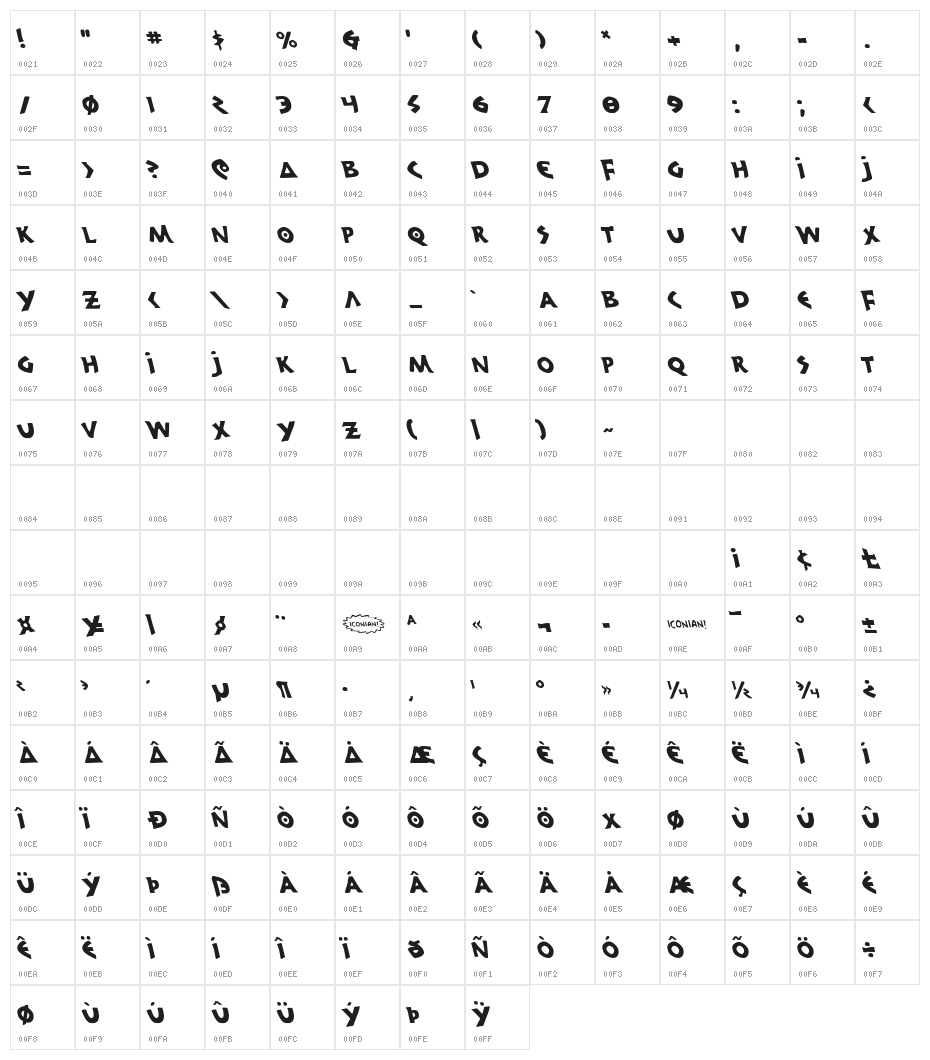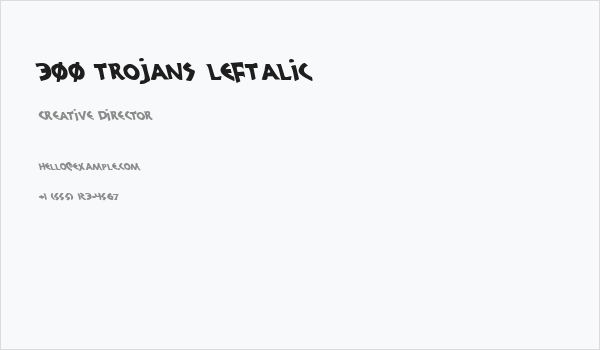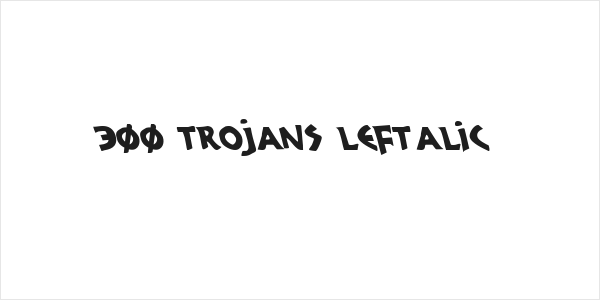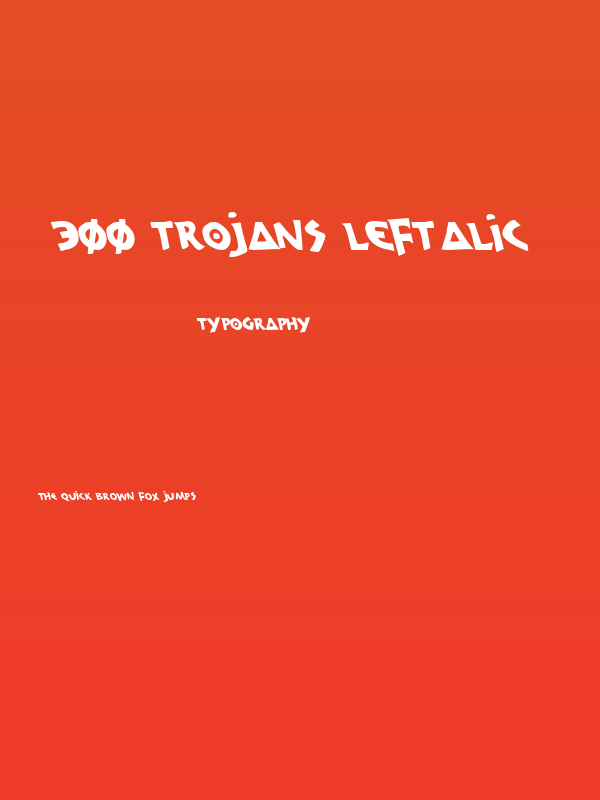
300 Trojans Leftalic Font
300 Trojans Leftalic Description
This font features a bold and dynamic style with a distinct slant, giving it an italicized appearance. The characters are thick and have a playful, almost cartoonish quality, with exaggerated curves and angles that create a sense of movement and energy. The uppercase and lowercase letters maintain a consistent style, while the numbers and special characters are equally bold and expressive. The font's unique design makes it stand out, making it suitable for creative and eye-catching projects.
| Proposed Projects | Ideal for posters, comic books, video game titles, and branding that requires a fun and energetic look. |